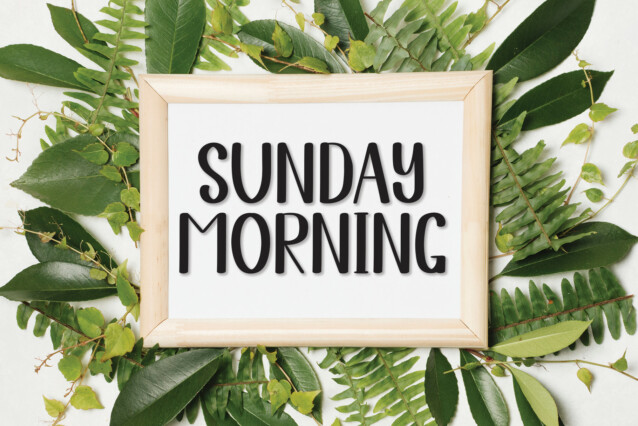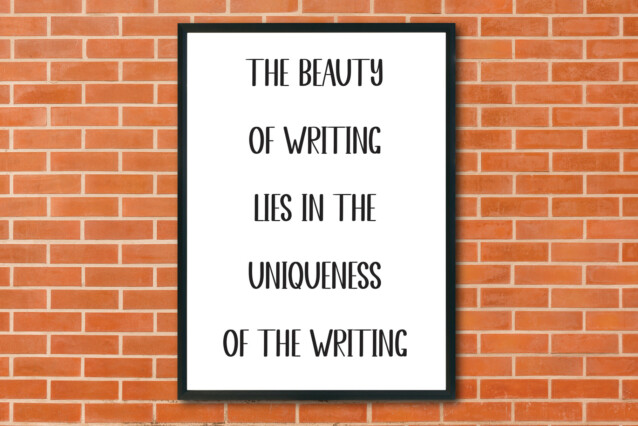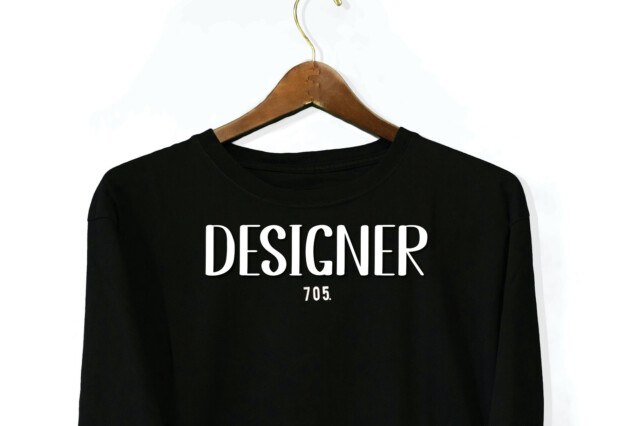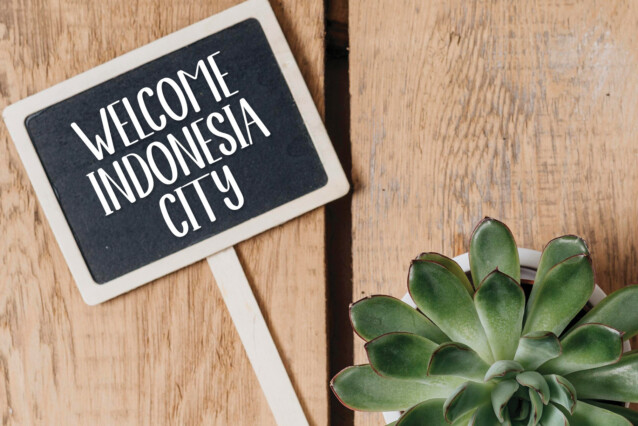
January Sunday Display Font
January Sunday Display Font is an all-caps handwritten font. Its latest style letters are perfect for wall displays, wedding invitations, social media post logos, advertisements, product packaging, product designs, labels, photography, watermarks, invitations, stationery, and any project that requires a taste for handwriting.